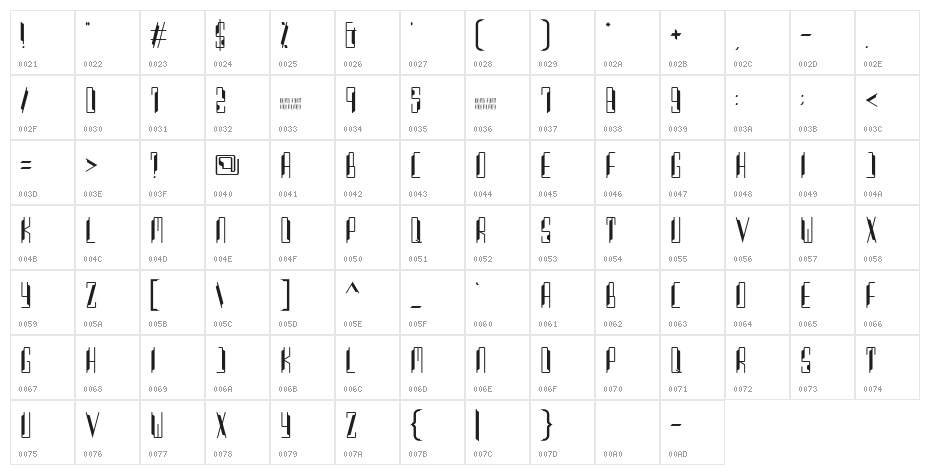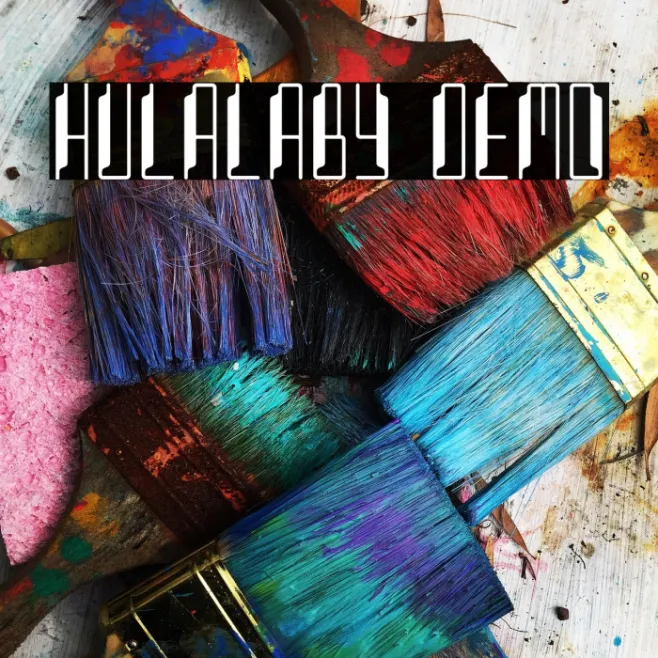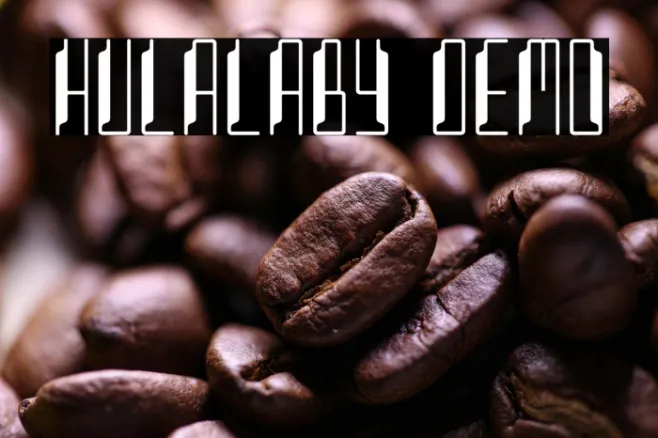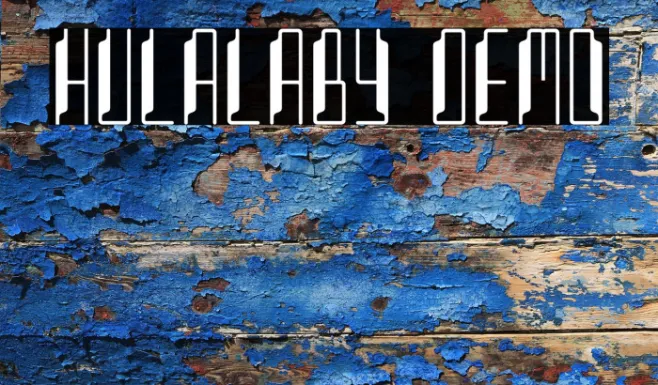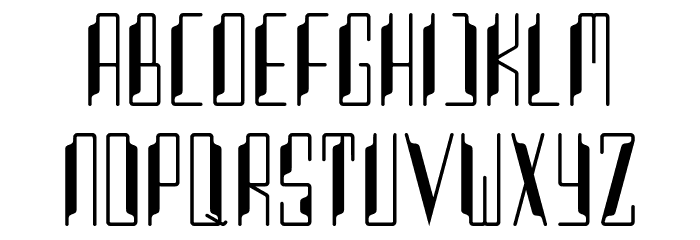
Hulalaby Demo Font
Hulalaby Demo Description
This font features a unique and modern design with a geometric and angular style. The characters are constructed with sharp edges and straight lines, giving it a futuristic and digital appearance. The uppercase and lowercase letters maintain a consistent height, creating a uniform look. The numbers and special characters follow the same design principles, ensuring a cohesive visual experience. The font's distinct style makes it stand out, ideal for projects that require a bold and contemporary aesthetic.
| Proposed Projects | Ideal for tech-related branding, digital media, futuristic posters, and video game graphics. |